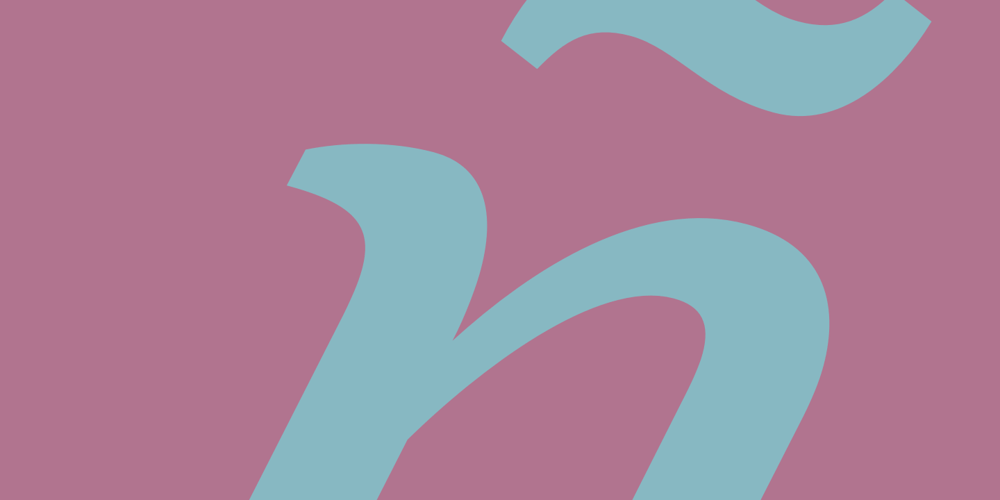
FF Meta Serif Font Family was designed by Christian Schwartz, Erik Spiekermann, Ralph du Carrois, Kris Sowersby, Botio Nikoltchev and published by FontFont. FF Meta Serif contains 12 styles and family package options. Type designers Erik Spiekermann (D), Christian Schwartz (US), and Kris Sowersby (NZ) created this serif FontFont in 2007. Extensions were made by Ralph du Carrois (D) and Botio Nikoltchev (BG). The family has 12 weights, ranging from Light to Black (including italics) and is ideally suited for advertising and packaging, book text, editorial and publishing, logo, branding and creative industries, small text as well as web and screen design. FF Meta Serif provides advanced typographical support with features such as ligatures, small capitals, alternate characters, case-sensitive forms, fractions, and super- and subscript characters. It comes with a complete range of figure set options – oldstyle and lining figures, each in tabular and proportional widths. As well as Latin-based languages, the typeface family also supports the Greek and Cyrillic writing systems. This FontFont is a member of the FF Meta super family, which also includes FF Meta, FF Meta Correspondence, and FF Meta Headline.